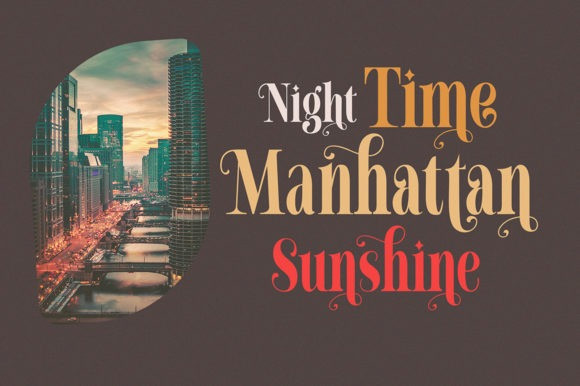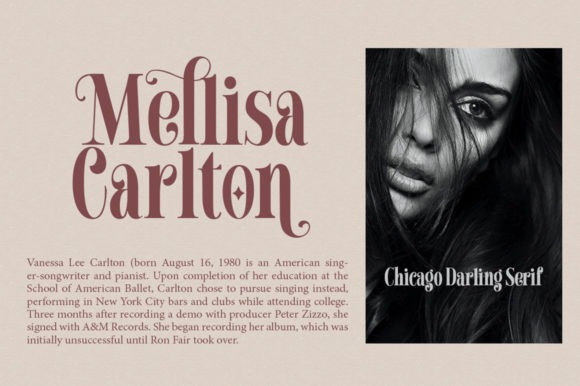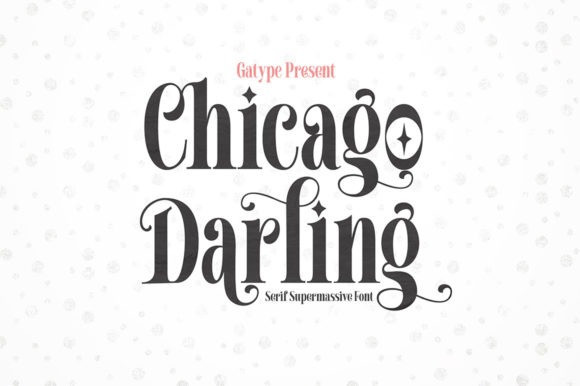
Chicago Darling Font
Chicago Darling Serif Font is an elegant and trendy serif font. It is PUA encoded which means you can access all of the glyphs and swashes with ease!
Add it confidently to your favorite creations and let yourself be amazed by the outcome generated.